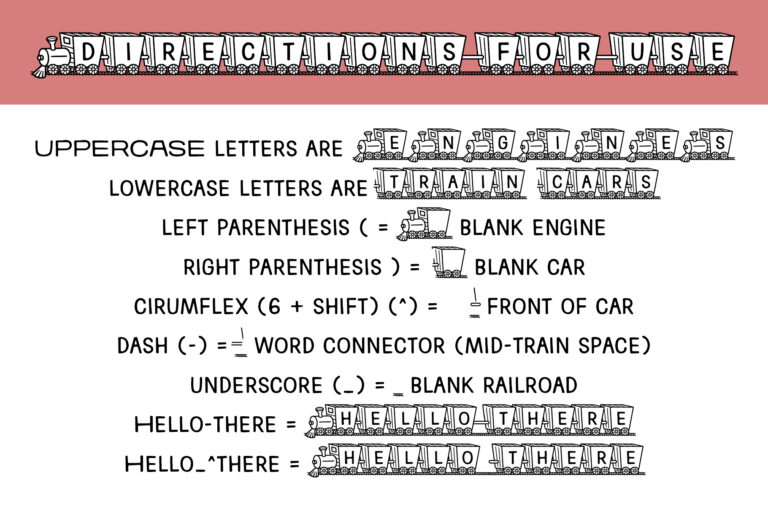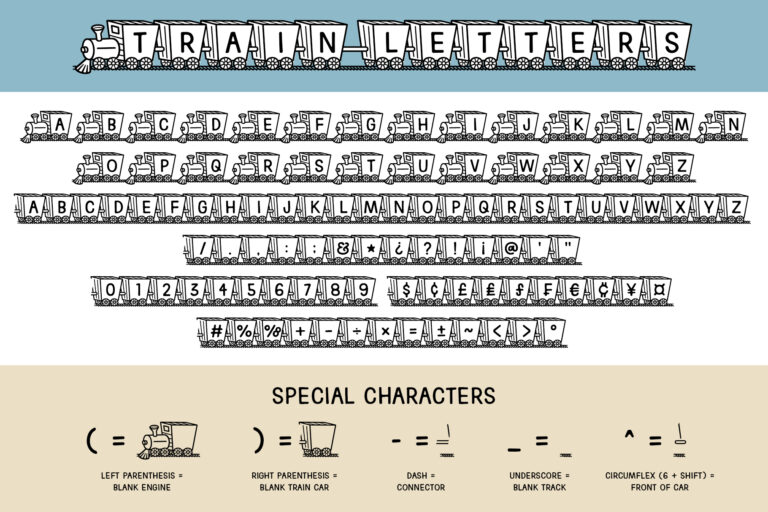
Train Letters Font
The Train Letters Font is a cute way to write sentences with trains. 🚂 Uppercase letters are on train engines and lowercase ones are on cars, so just use an uppercase letter to start the train, and lowercase letters to finish it. You can use a dash in the middle to separate words. (See the ‘Directions’ image for more details.)
Special Characters
Dash (-) = Word Connector (Mid-train Space)
Left Parenthesis ( = A Blank Engine
Right Parenthesis ) = A Blank Car
Circumflex (^) (6 + Shift) = the front of a train car
Underscore (_) = Blank Railroad